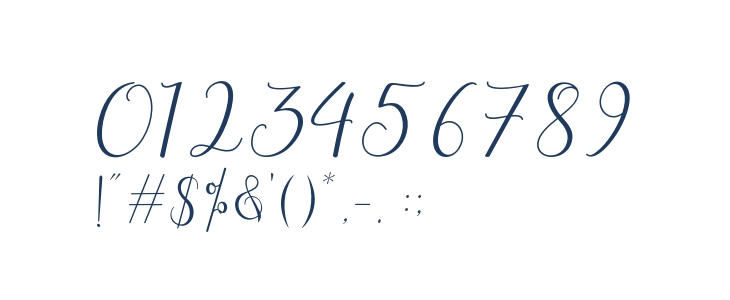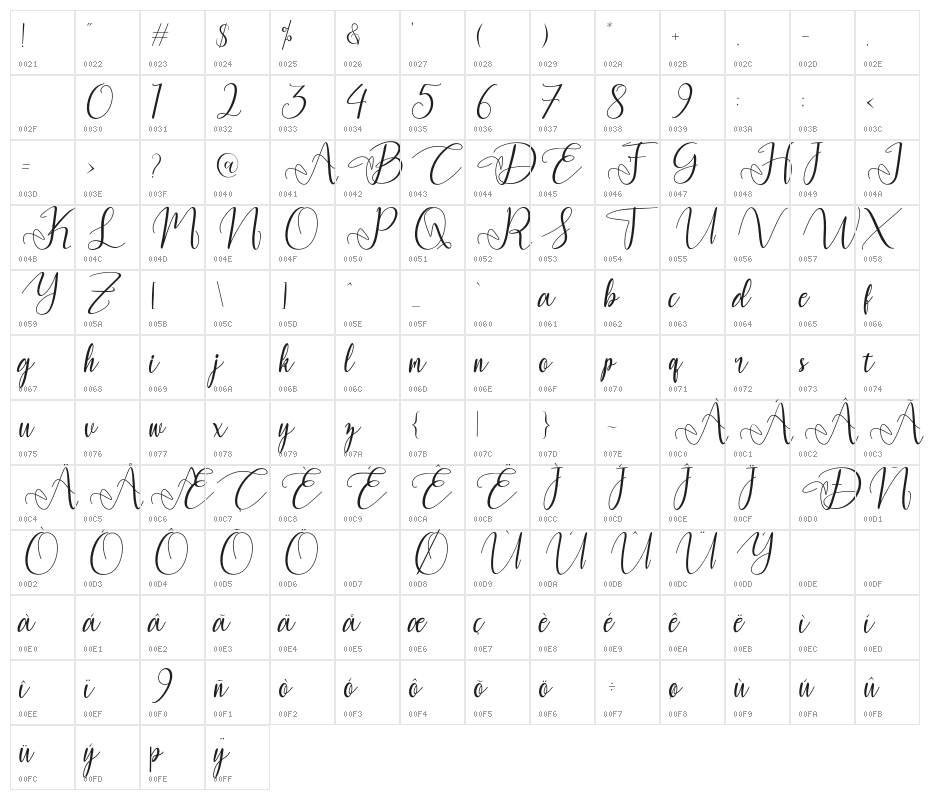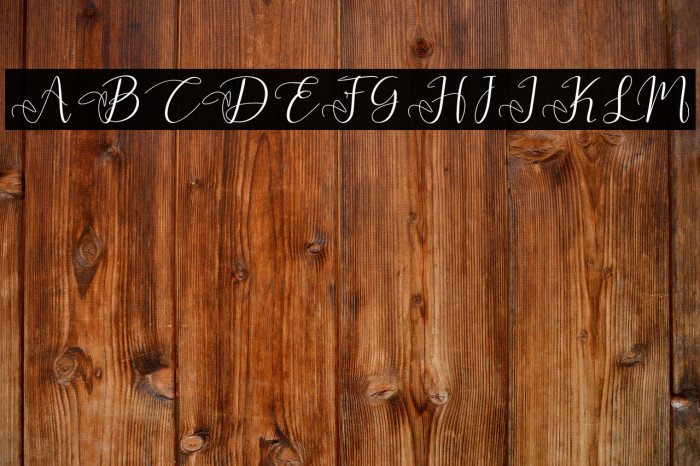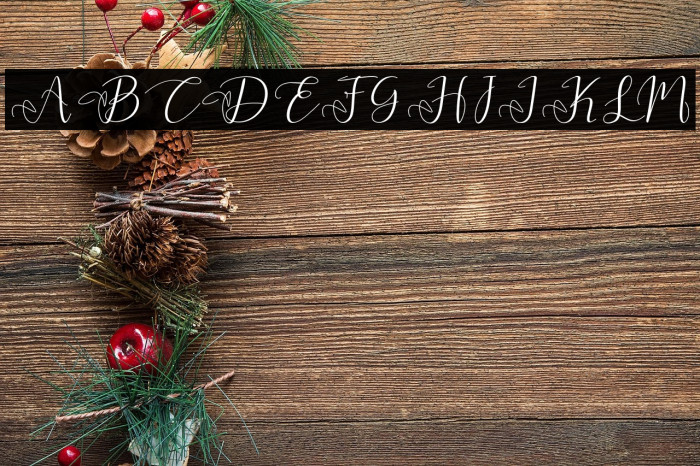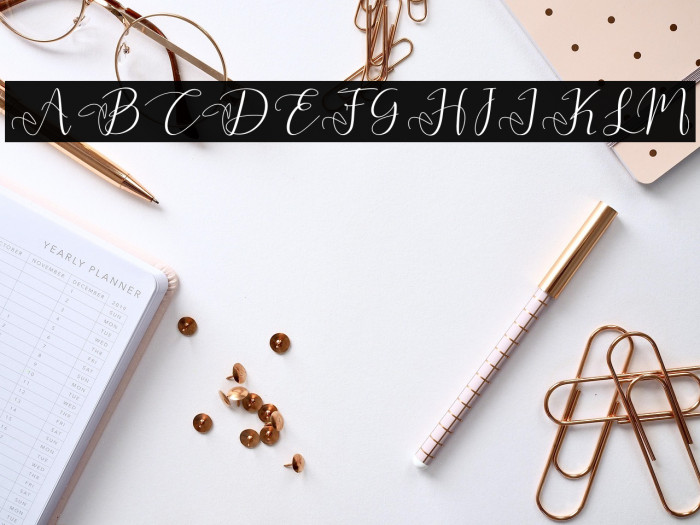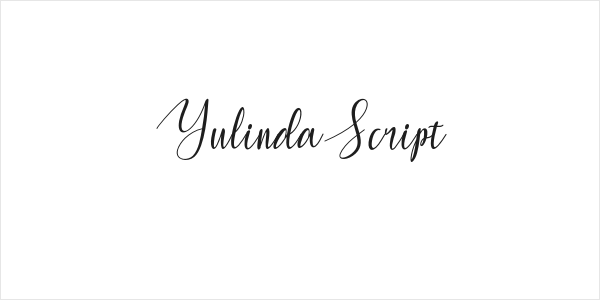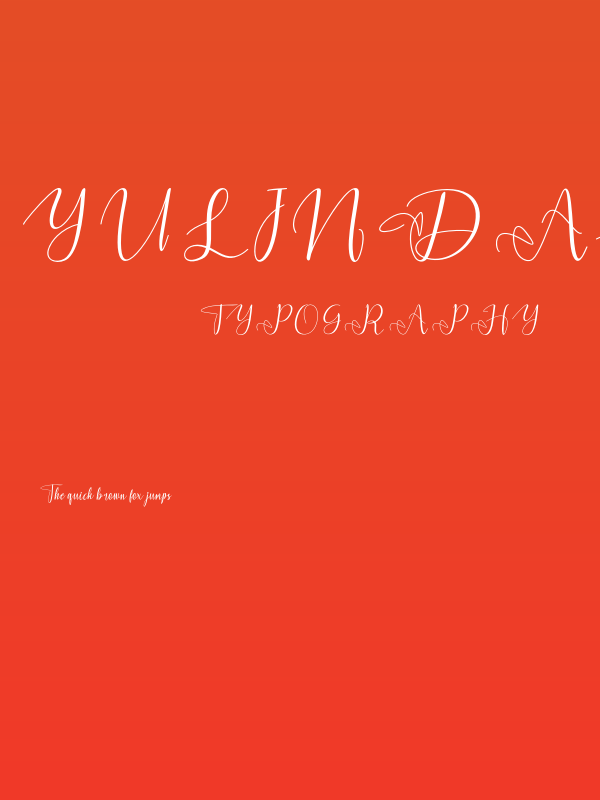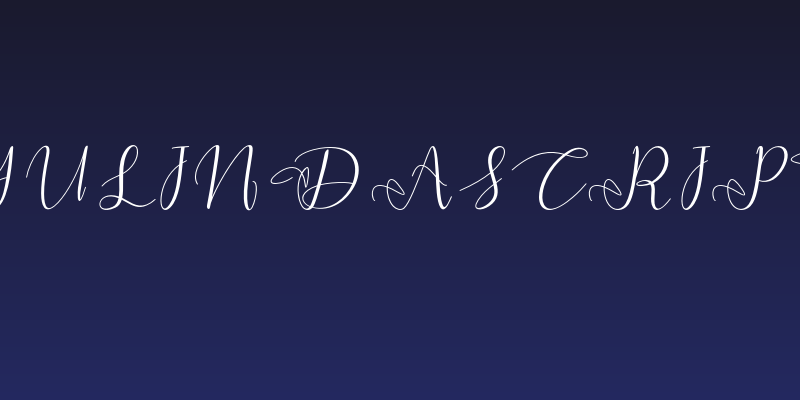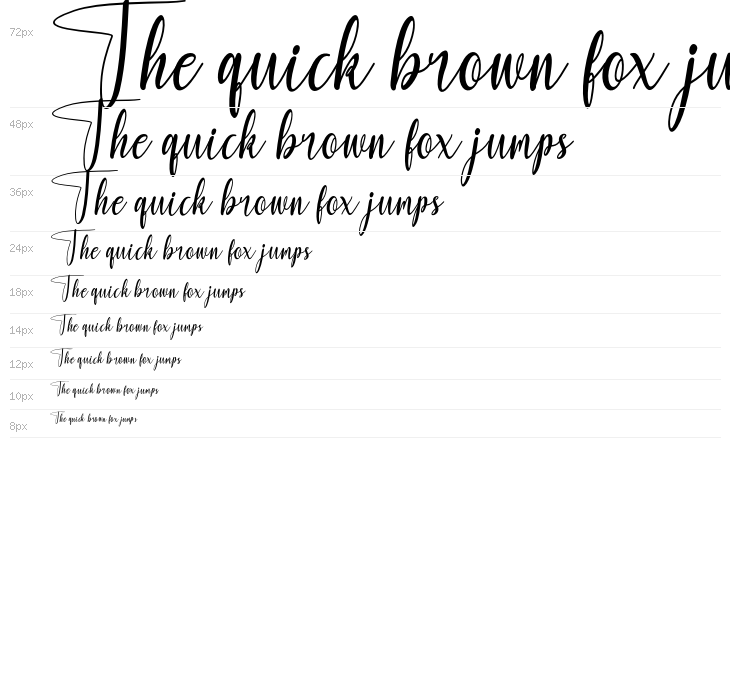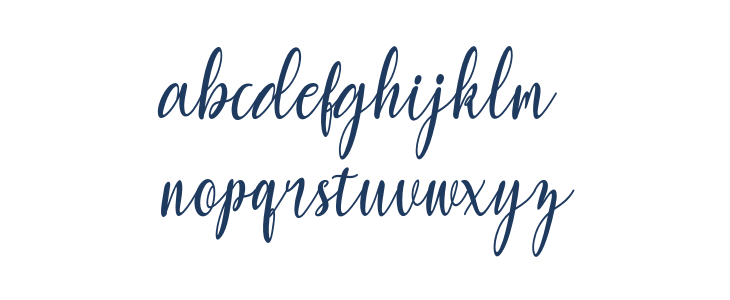
YulindaScript Font
YulindaScript Description
This elegant script font features a flowing, cursive style with intricate swashes and loops that give it a sophisticated and artistic appearance. The uppercase letters are adorned with delicate flourishes, while the lowercase letters maintain a smooth and connected script form. The numbers and special characters are designed with a similar flair, ensuring consistency throughout. This font exudes a sense of grace and fluidity, making it ideal for projects that require a touch of elegance and creativity. Its versatility allows it to be used in various design contexts, from formal invitations to artistic branding.
| Overall Style | Elegant, Artistic |
| Use Case | Headlines, Invitations, Artistic Branding |
| Proposed Projects | Ideal for wedding invitations, elegant branding, artistic posters, and greeting cards. |